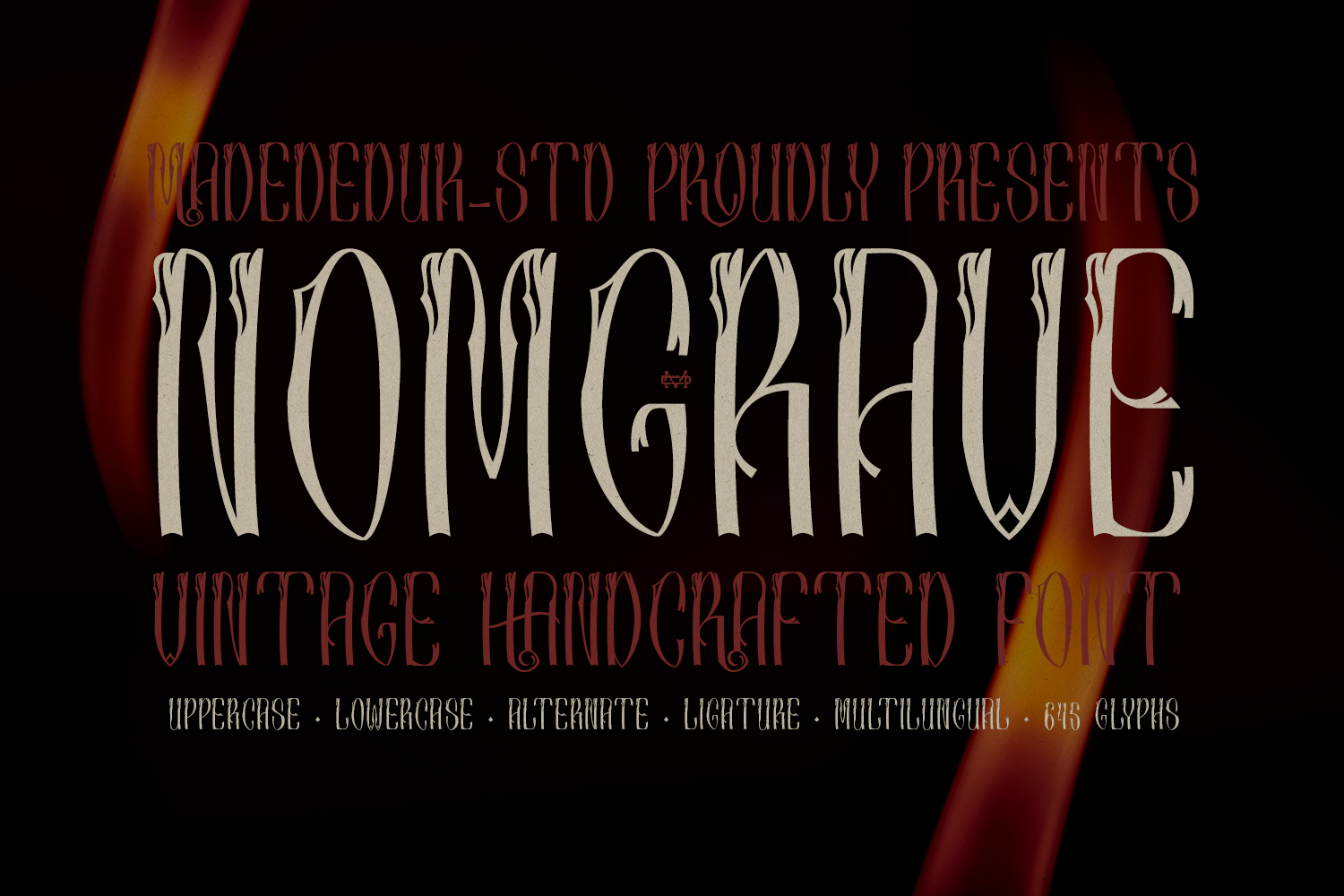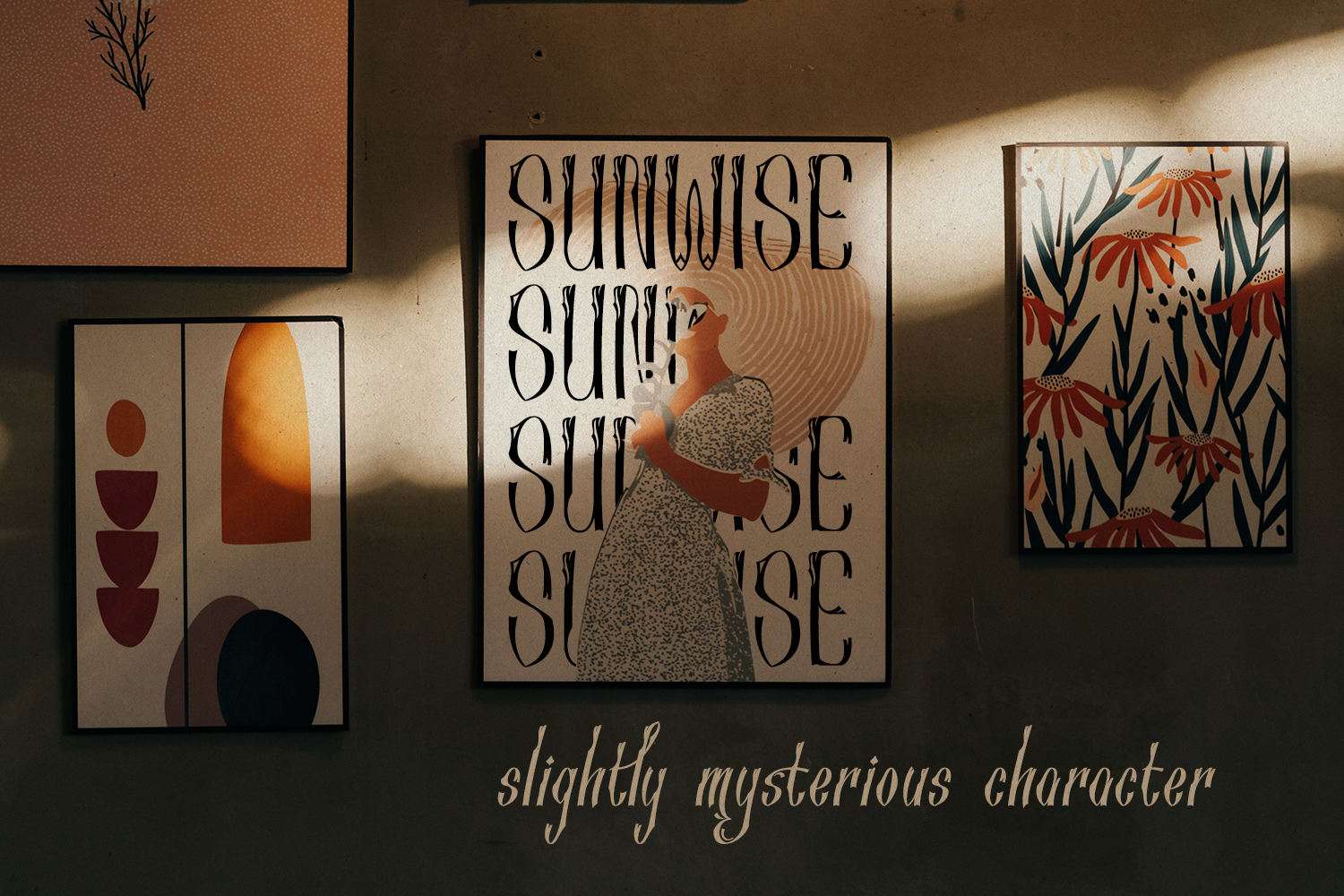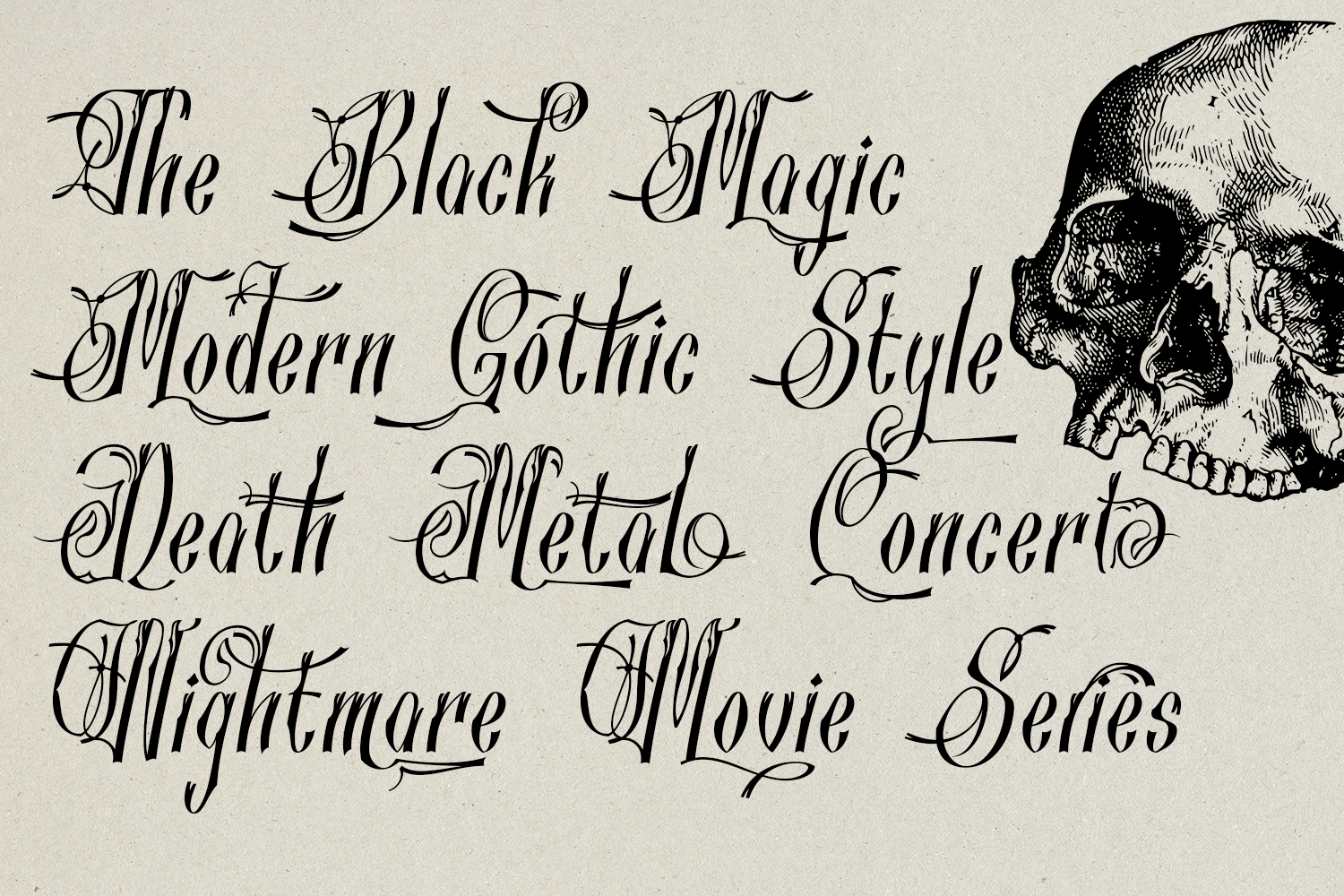
Introducing Nomgrave, this font features a vintage handcrafted style with intricate ornamental details and distinctive letterforms. Its flowing curves, elongated strokes, and decorative elements create a sophisticated, artistic, and slightly mysterious character. The unique combination of classic Gothic elements and graceful details gives the font a strong visual identity.
Designed with an ornamental appearance, this font combines dramatic letter shapes with delicate curves and extended swashes. Its expressive details create a luxurious and timeless impression, making it suitable for packaging, menus, invitations, book covers, posters, and other creative designs that require a distinctive and sophisticated visual style.